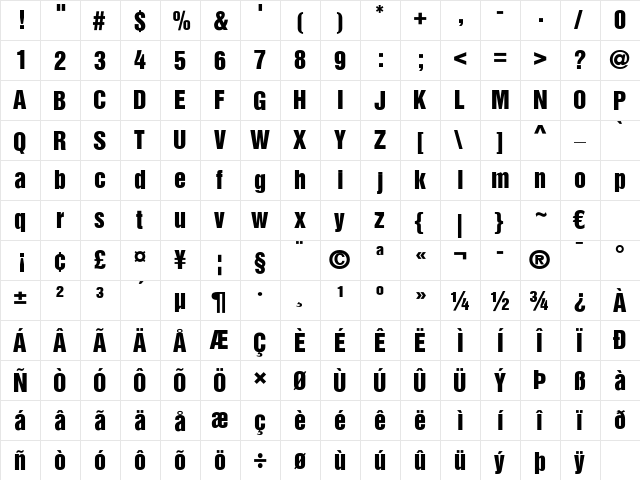
HelveticaInserat LT Regular
Design Context for HelveticaInserat LT Typeface
HelveticaInserat LT is a composed and adaptable typeface that performs quietly and consistently across a wide range of design contexts. Its slender proportions lend an understated elegance to any composition.